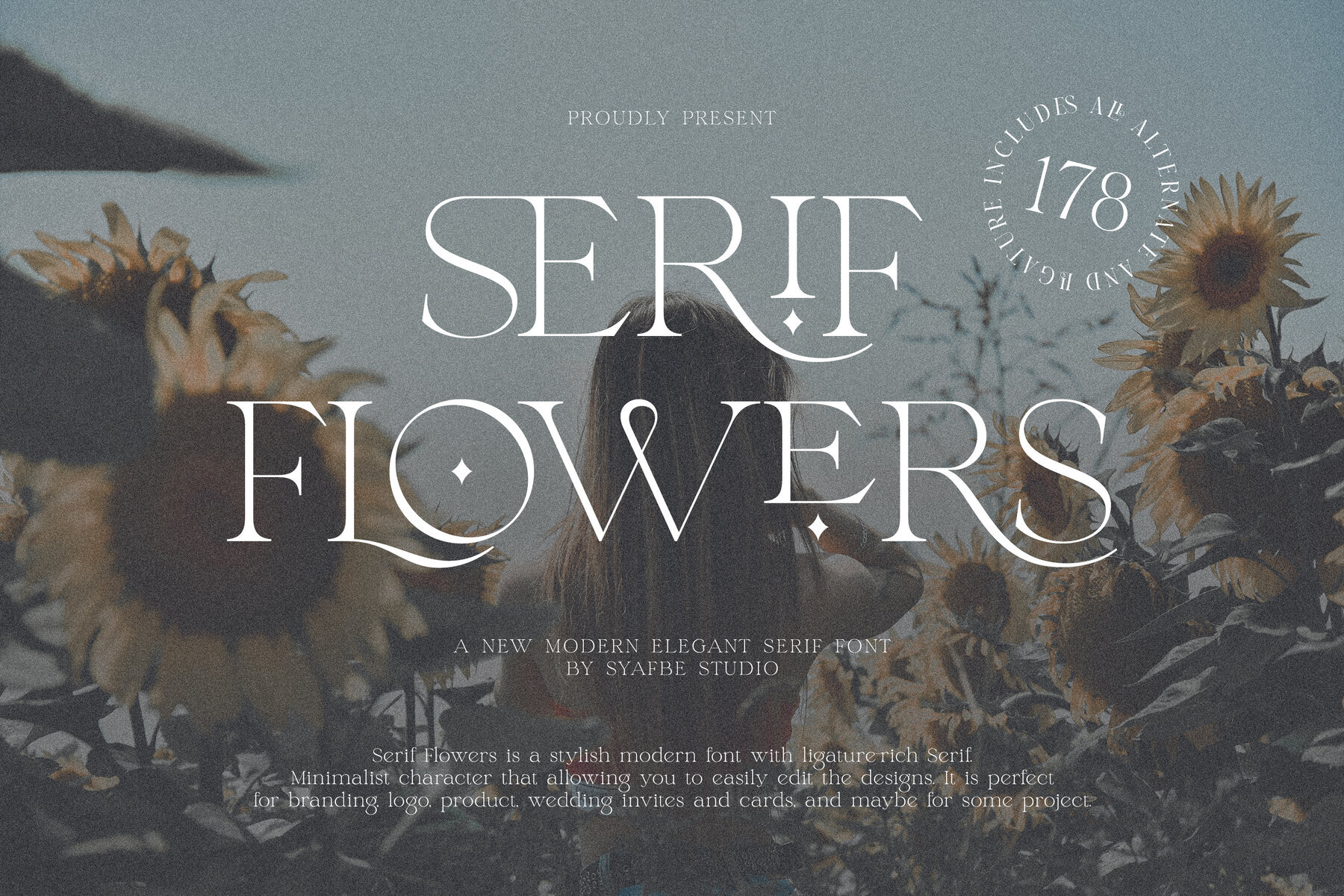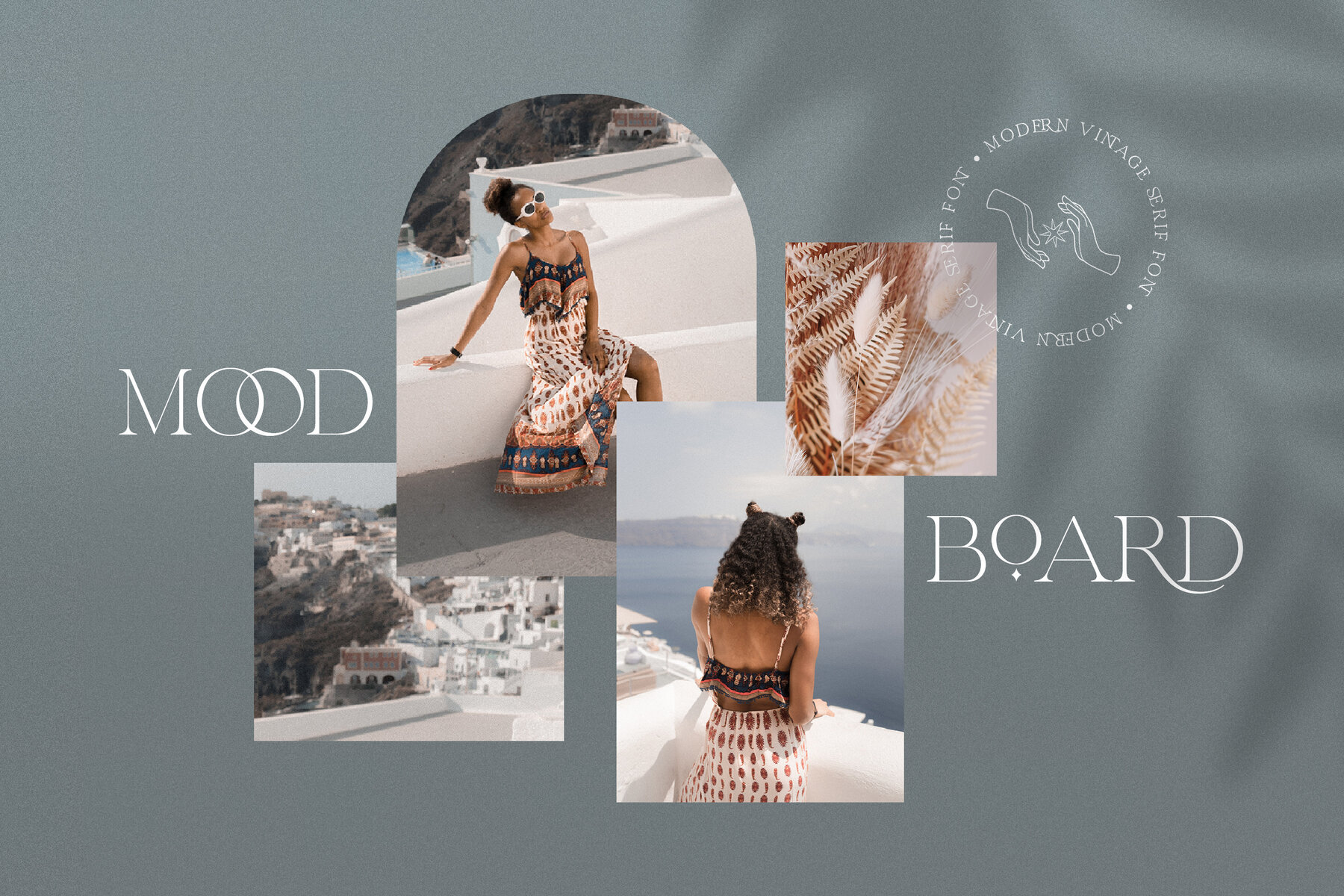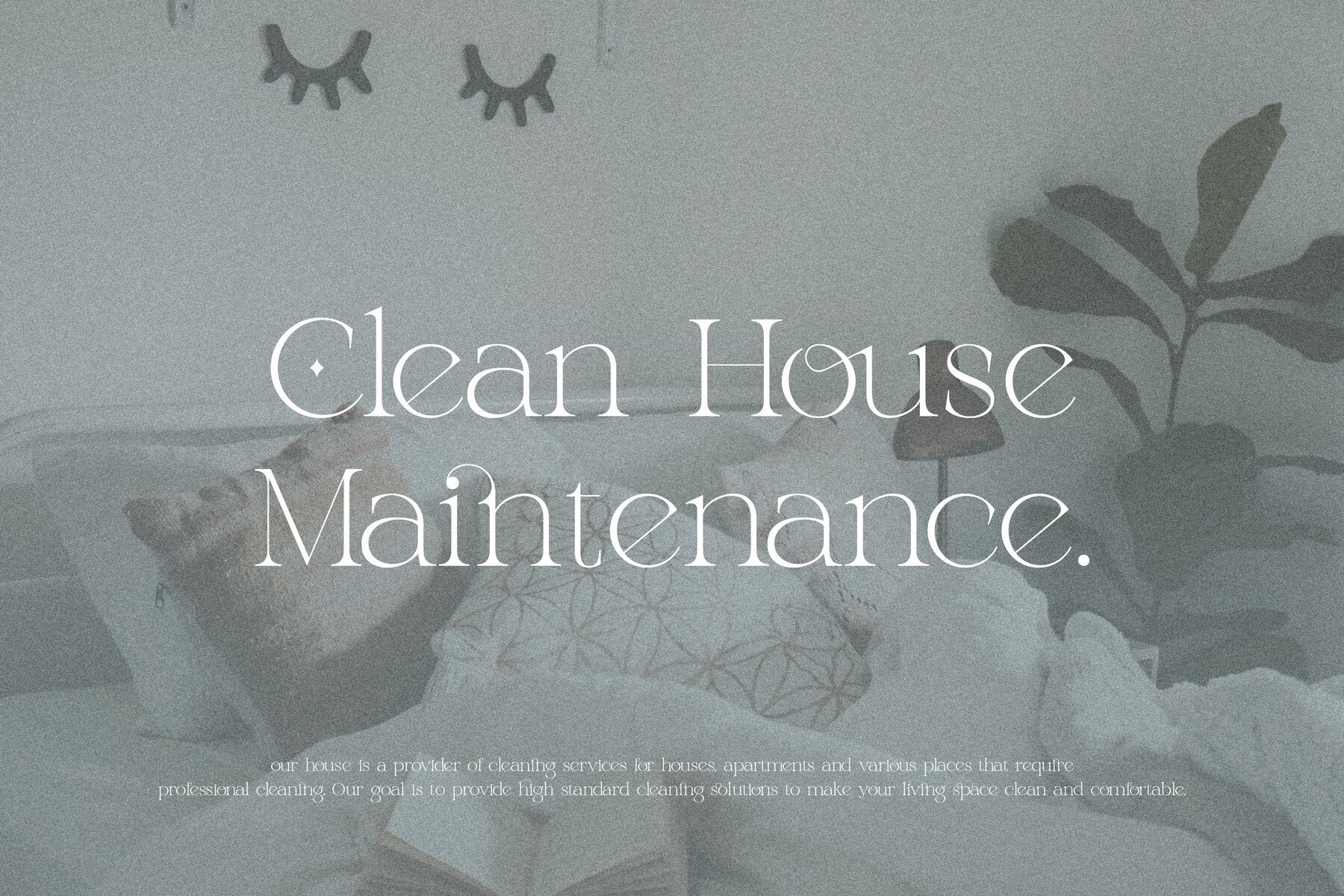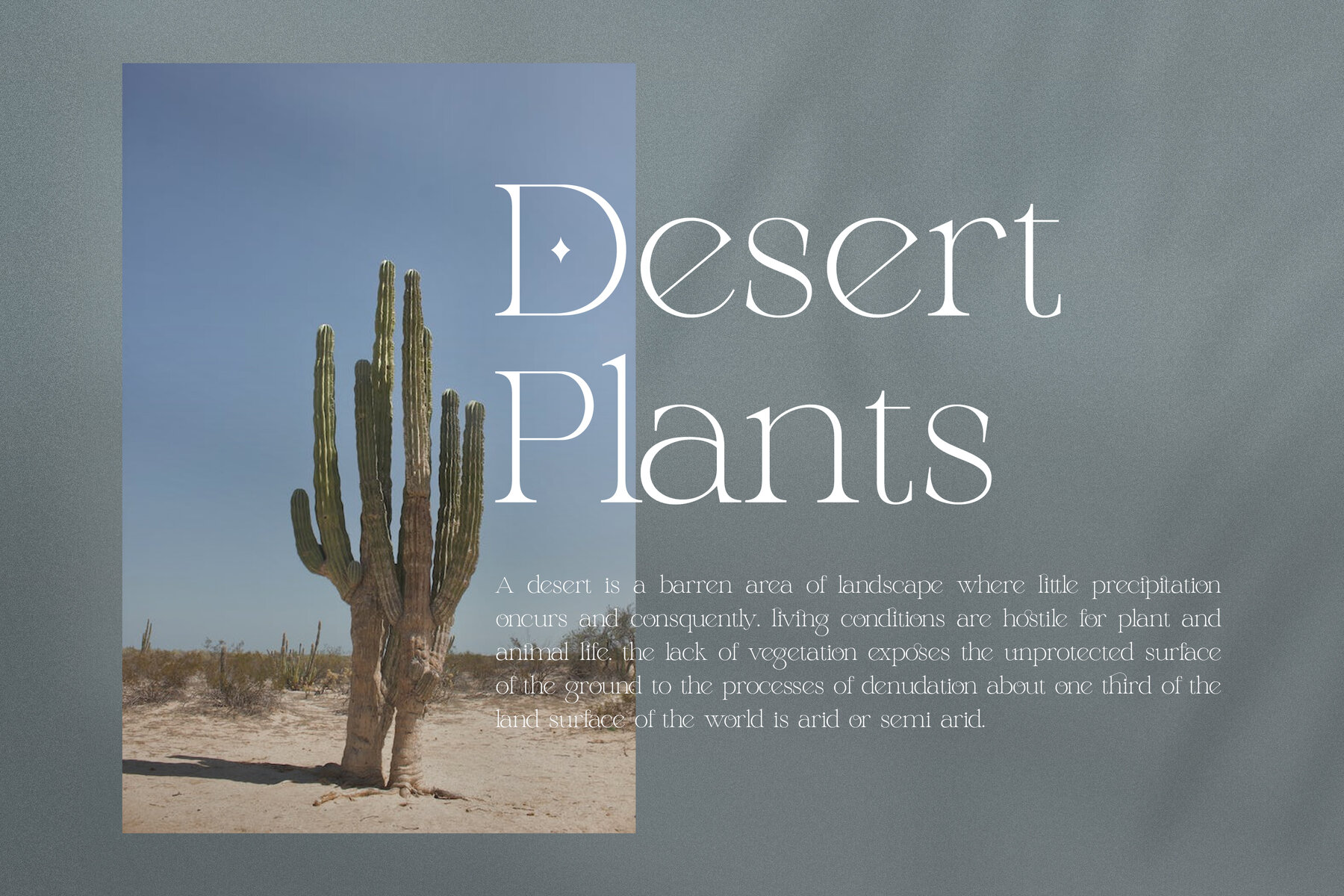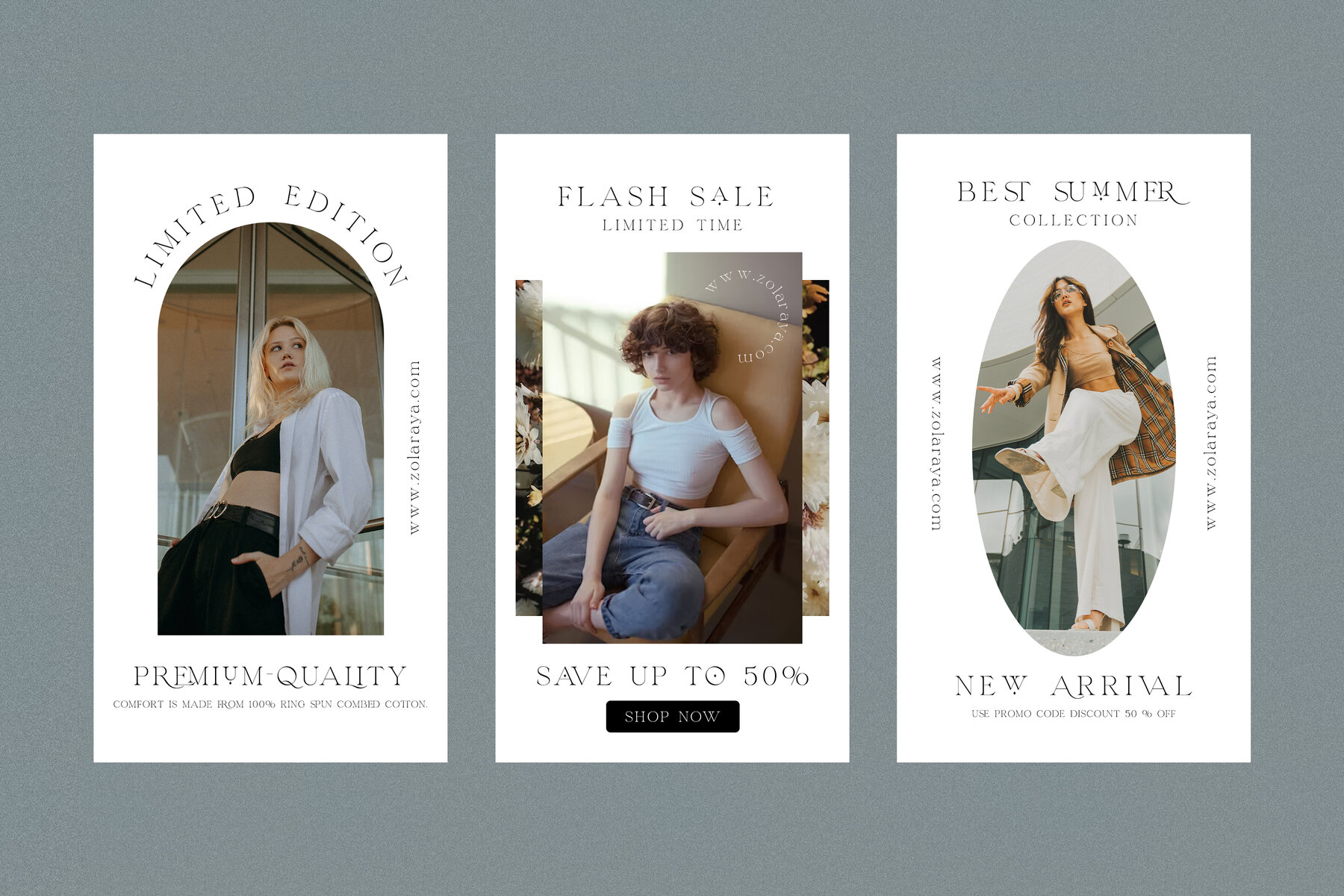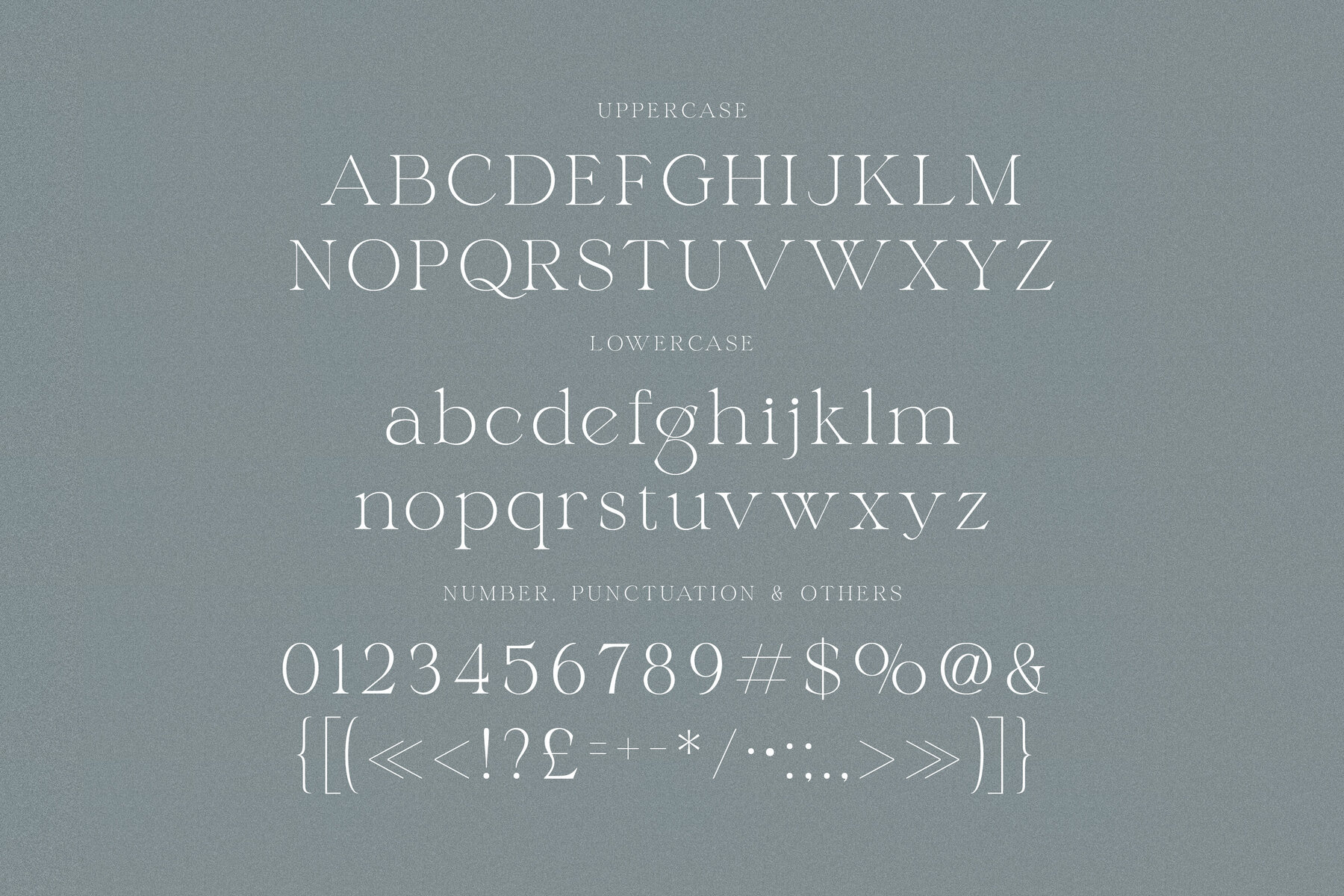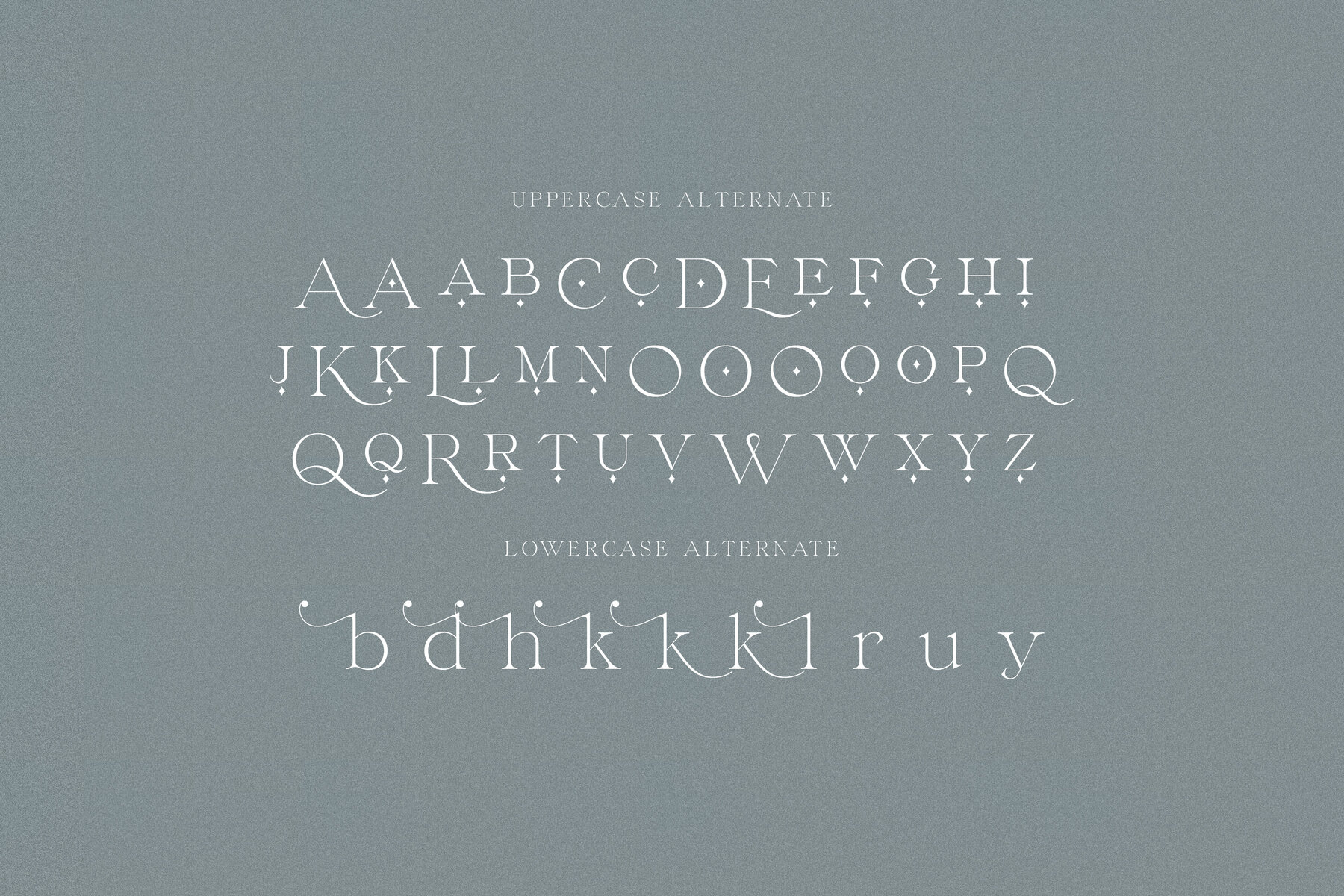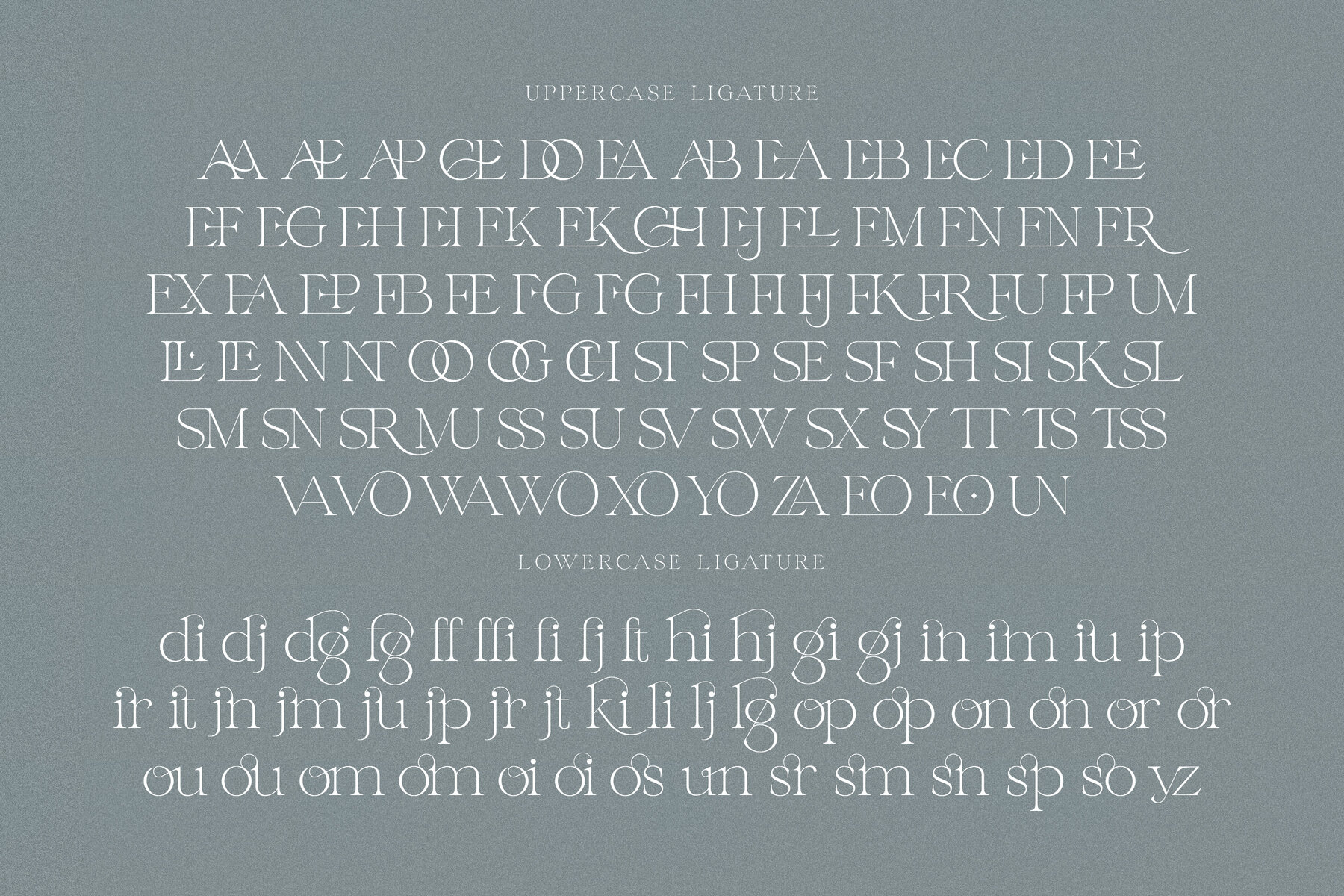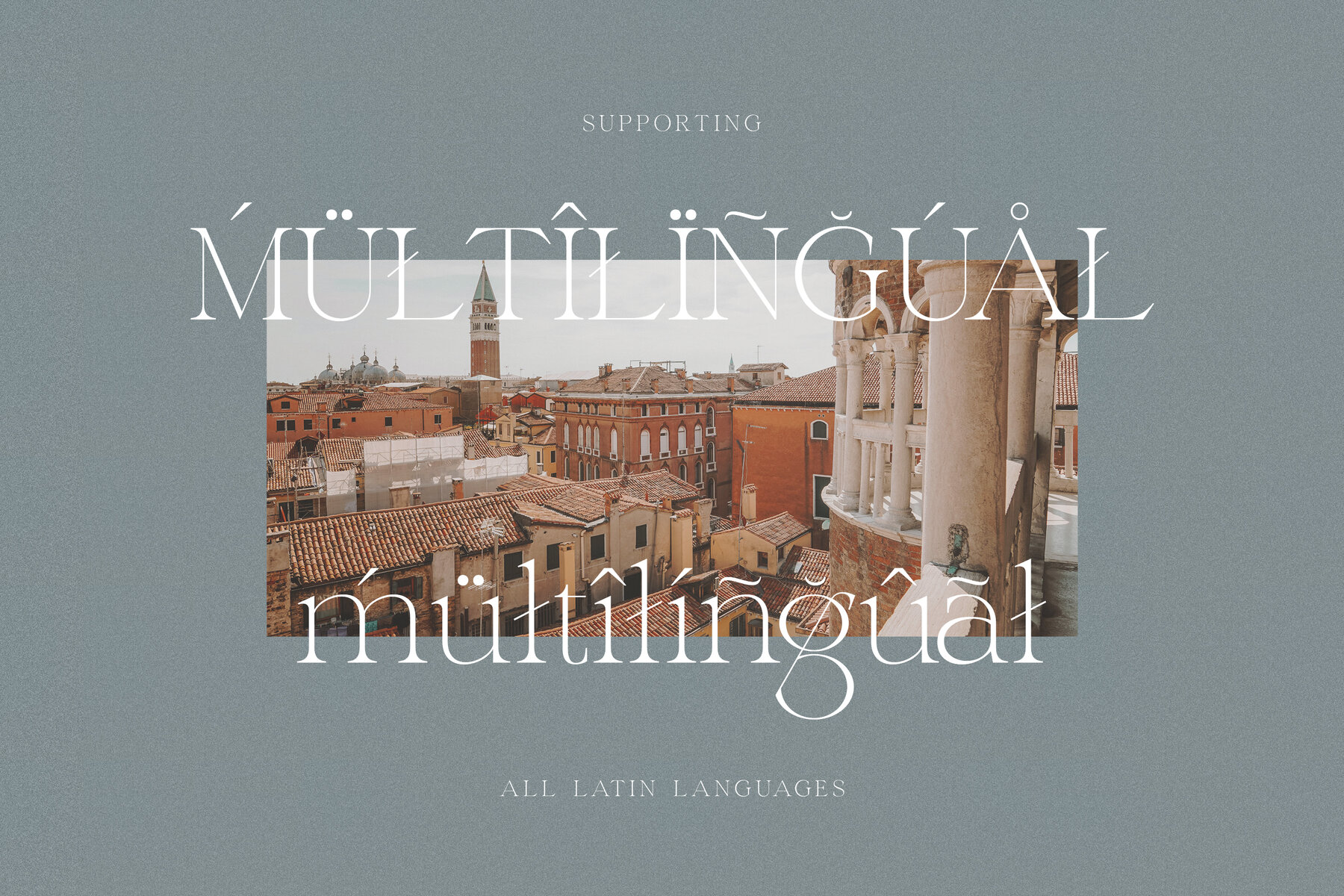
Serif Flowers Font
Serif Flowers is a form of beauty born from precision and sophistication. This font is more than just letters; it is an expression of elegance designed with a touch of classy modernity. Every curve and line of its serifs invites calm, while also stimulating the imagination. With a balance between firmness and softness, luxury and simplicity, Serif Flowers exudes a soft yet strong aura, creating an elegant and captivating visual harmony. This font is not only a visual communication tool, but a bridge to emotion. Like a flower that blooms with sincerity, Serif Flowers depicts a philosophy of eternity and growth that is relevant at all times. It invites the eye to pause and absorb its beauty, conveying a profound message without being excessive. A blend of art and function, Serif Flowers celebrates every detail of life, which is often hidden in simplicity. Serif Flowers is a very versatile font, suitable for use in various design fields. Whether for branding, logos, wedding invitations, or marketing materials, this font is able to adapt to various aesthetic needs. Its elegance and modernity make it ideal for creating a strong, yet elegant visual identity. Not limited to one area, Serif Flowers provides incredible flexibility, bringing a luxurious touch to a variety of projects, both formal and casual. Its beauty can enrich works in various contexts, providing a timeless and timeless feel.